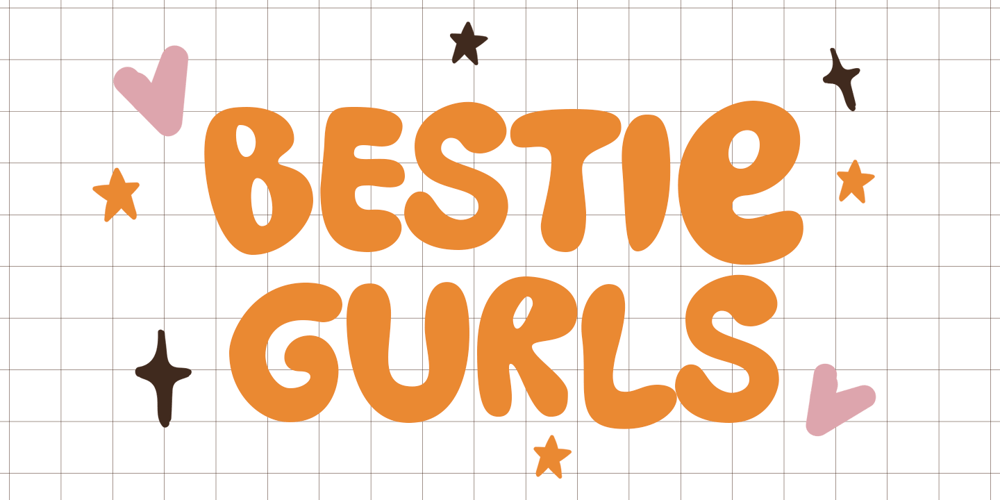
Bestie Gurls Font Family was designed by Novitasari Romli and published by Novitype. Bestie Gurls contains 1 styles and family package options. Introducing “Bestie Gurls” Font, a playful Bubble Font exuding a child-like, hand-drawn charm that will bring a sense of fun to your creative endeavors. Packed with special characters and multilingual support, this font is a versatile choice suitable for various applications.Bestie Gurls is perfect for display, posters, quotes, book covers, games, art prints, and more. This font will add a joyful touch to your projects, leaving a lasting impression on your audience.